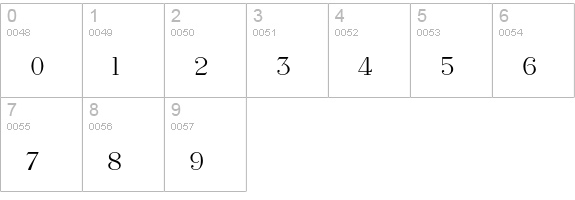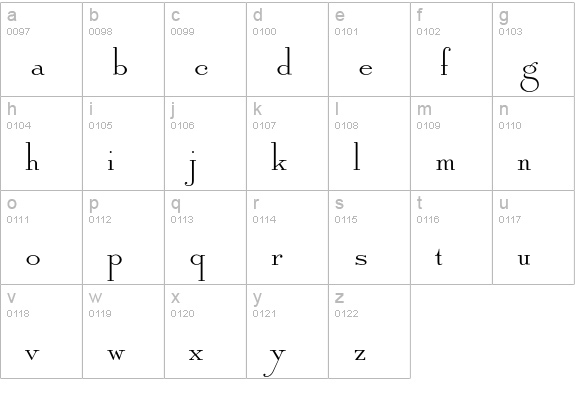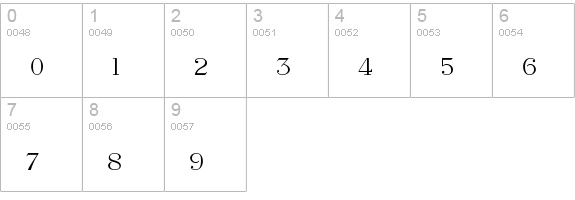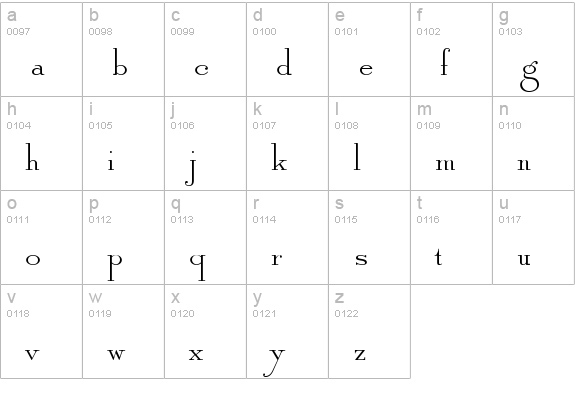
Solid Antique Roman Std Font Details
Solid Antique Roman Std is a stunning vintage font that exudes timeless elegance and sophistication. With its bold yet graceful letterforms, this font captures the essence of ancient Roman typography, making it perfect for adding a touch of classical beauty to any design project. Crafted with meticulous attention to detail, Solid Antique Roman Std features clean, crisp lines and carefully proportioned characters that lend a sense of balance and harmony to your text. Its solid and sturdy presence makes it ideal for headlines, logos, and other prominent design elements. One of the standout features of Solid Antique Roman Std is its versatility. Whether you're creating a modern advertisement or a vintage-inspired poster, this font seamlessly adapts to various design styles and themes. Its timeless appeal ensures that your work will always stand the test of time. Not only does Solid Antique Roman Std deliver exceptional aesthetics, but it also offers convenience and accessibility. The font is freely available to download at FontsMarket.com, allowing designers, artists, and enthusiasts alike to easily incorporate this beautiful typeface into their projects. With Solid Antique Roman Std, you can elevate your designs to new heights, effortlessly combining the charm of ancient Roman typography with the demands of contemporary design. So why wait? Download Solid Antique Roman Std today and unleash your creativity with this captivating and versatile font.